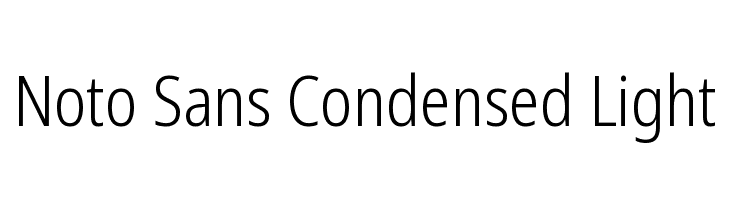
A modern, condensed sans-serif font with light strokes and excellent readability.
A modern, condensed sans-serif font with a clean and professional look.
A modern, thin, and condensed sans-serif font with excellent legibility.